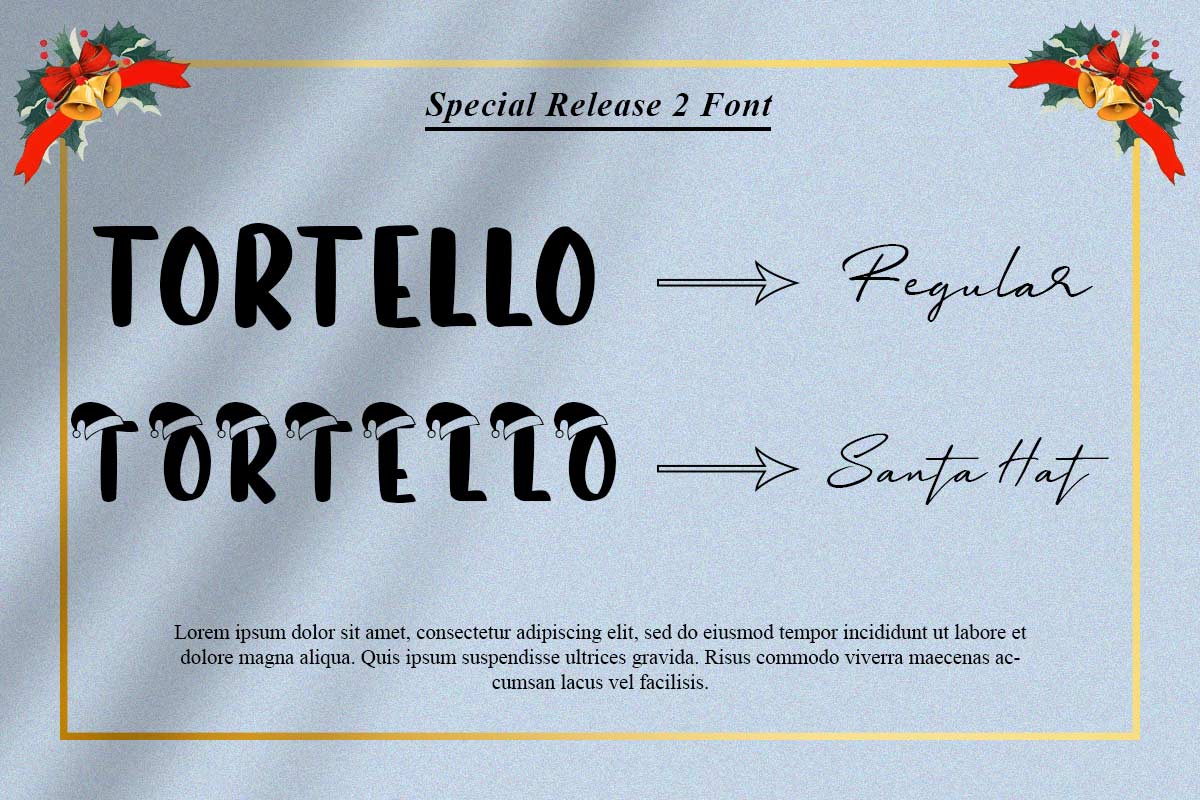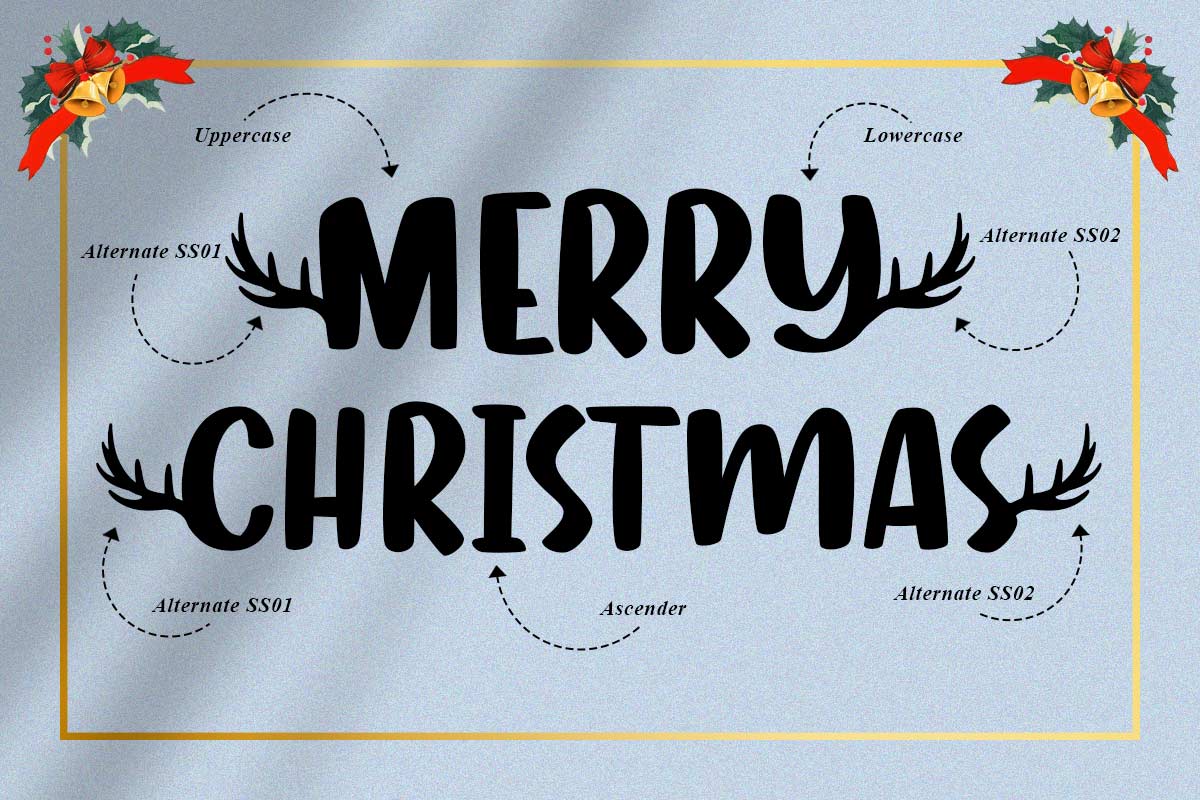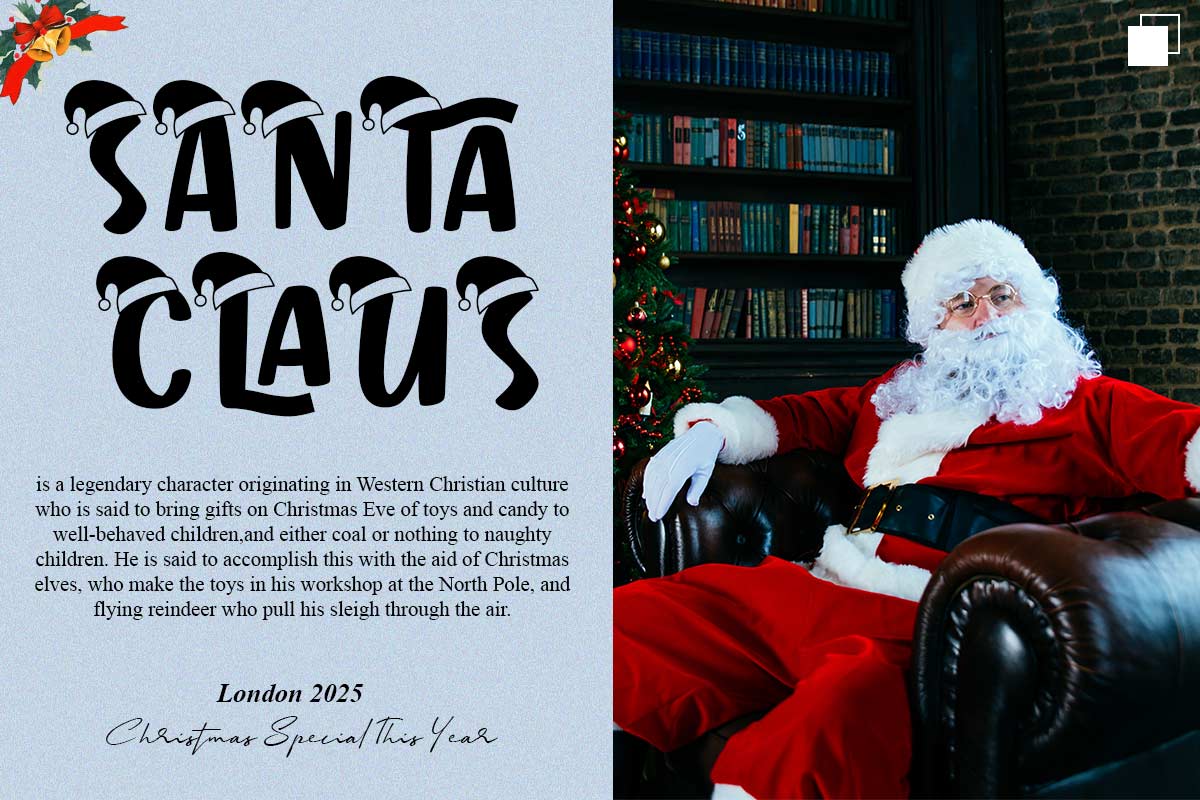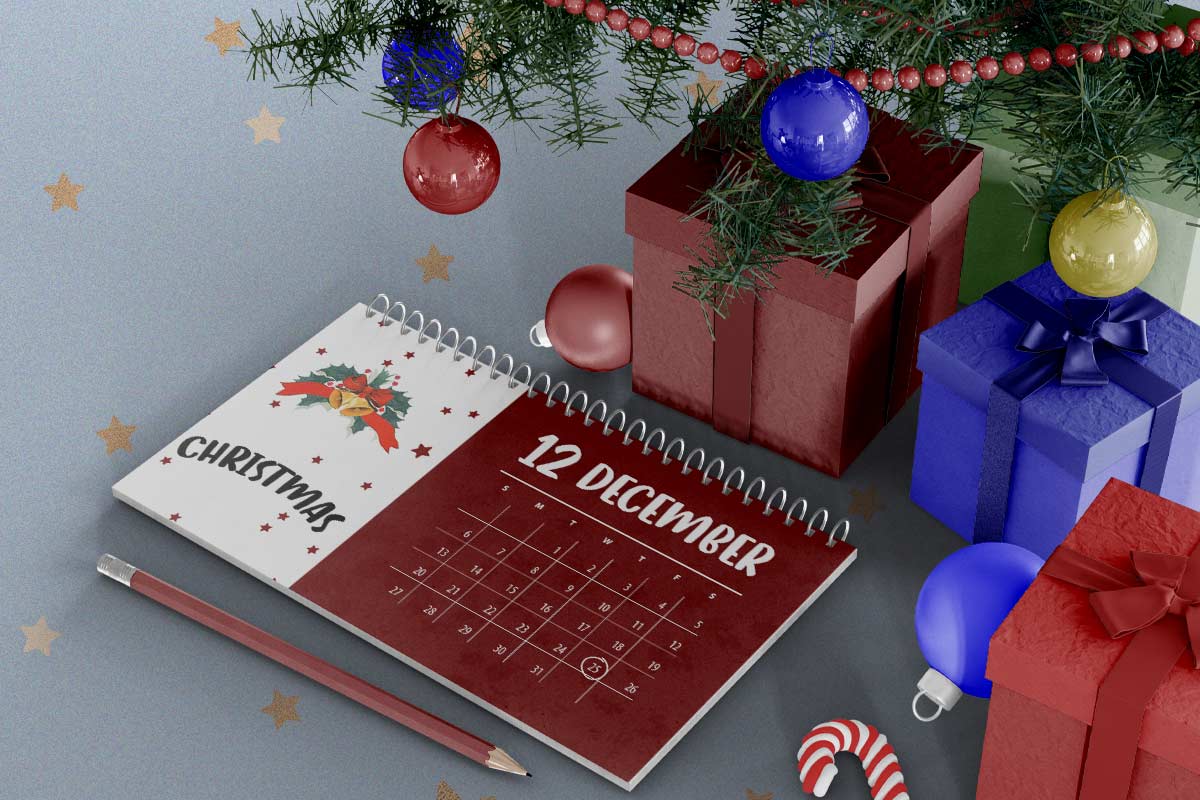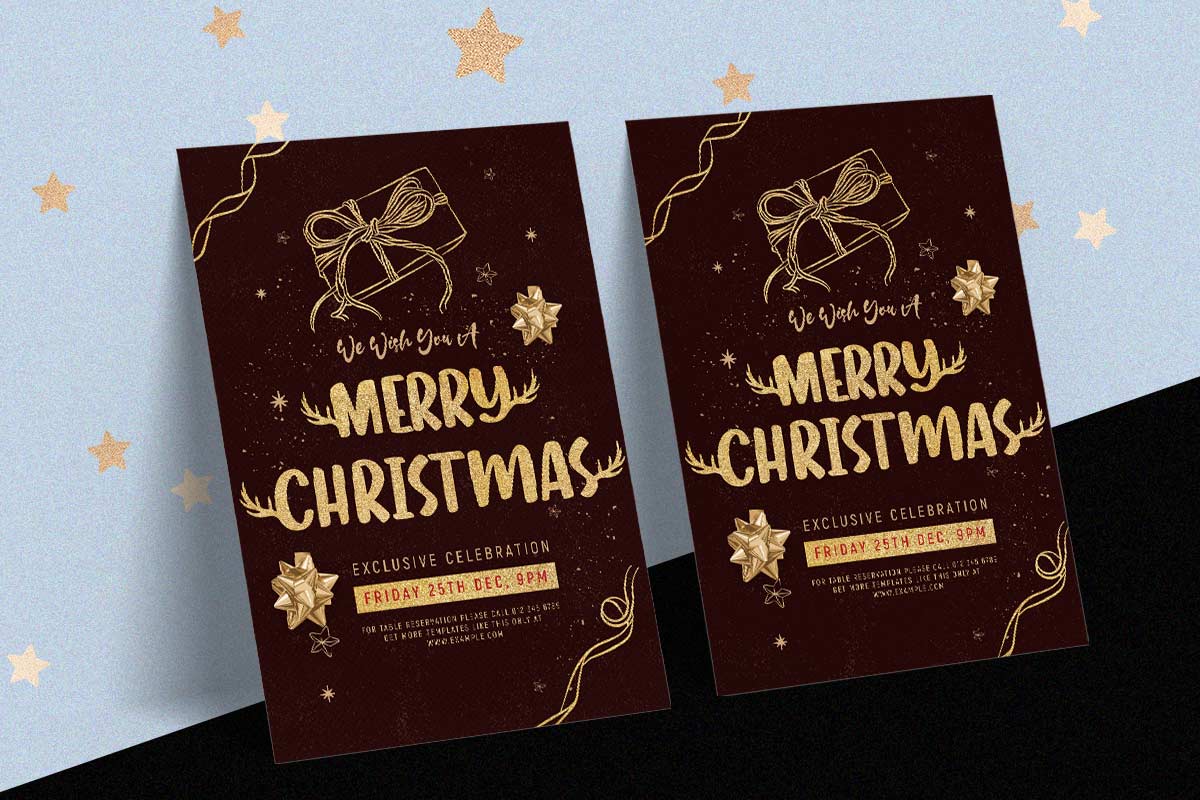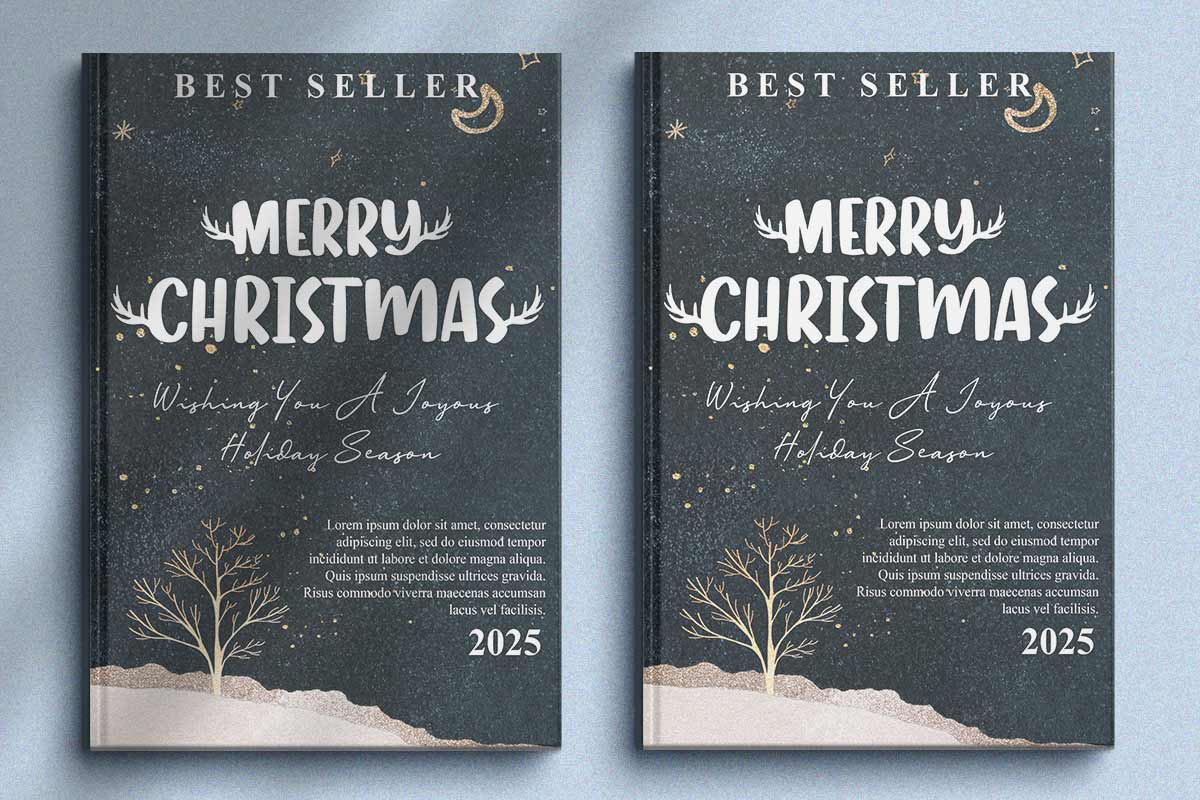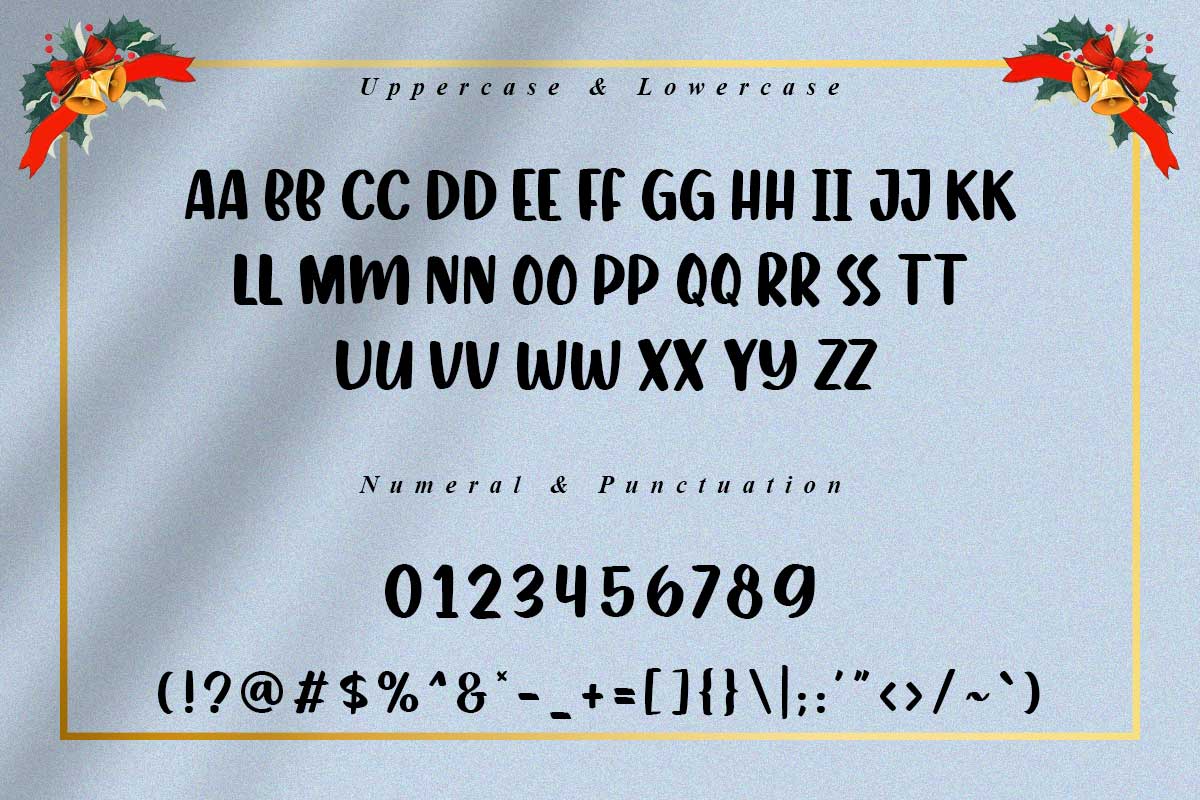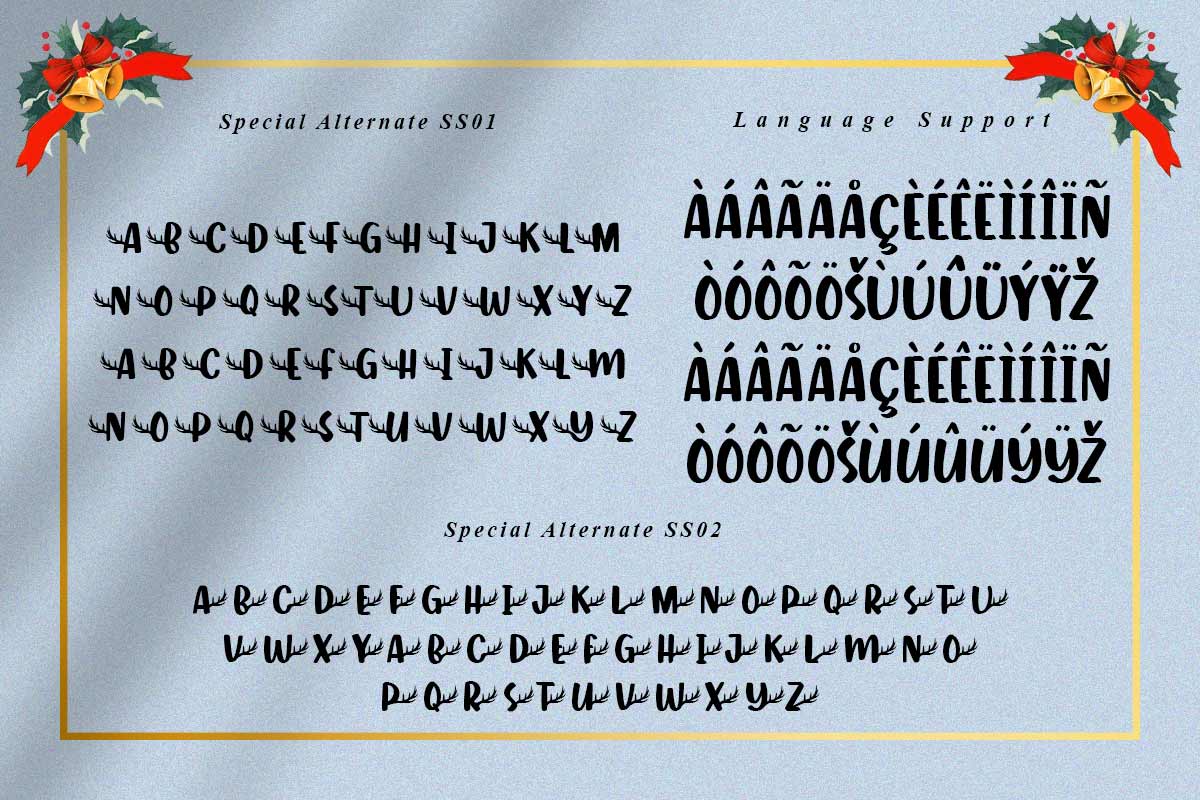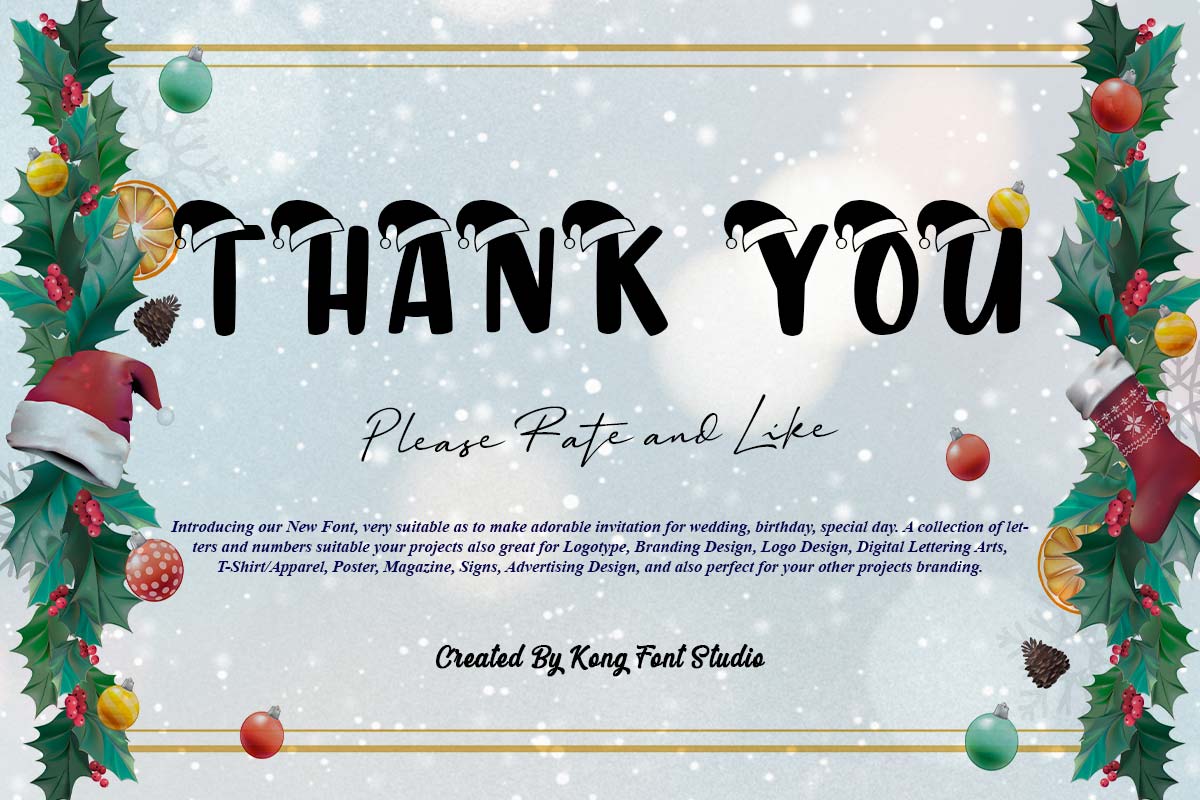
Tortello Decorative Font/strong> Kong font is back with a new type of decorative font. Tortello Decorative Font was created to add to the variety of options available to font users looking for a Christmas font to complement the celebrations. Of course, this is an advantage for you because the font is very unique and not monotonous. Tortello Decorative Font has the characteristic of being unique and simple at the same time. This font is clean without any excessive curvature. It has the addition of a Christmas hat accent at the top end of the letters. Despite having additional accessories, the Tortello is a legible font. Given how interesting the characteristics are created, Tortello Decorative Font is one of the best Christmas fonts when used on Christmas banners, invitation cards, wall decorations, and others. Font Kong provides Tortello Decorative Font for digital and print use. Both of them will not eliminate the beauty and aesthetic elements evoked by Tortello Decorative Font. The impression of this font will shine even more when combined with Christmas colors such as red, green, yellow, and gold. Our decorative fonts collection is compatible to use as Figma fonts, Canva fonts, Freepik Fonts, and Adobe Fonts. They also work as Windows Fonts and Apple Fonts. For your social media needs, you can use and install fonts in our collection of Embroidery fonts to use as Instagram Fonts, Facebook Fonts, and Twitter Fonts.